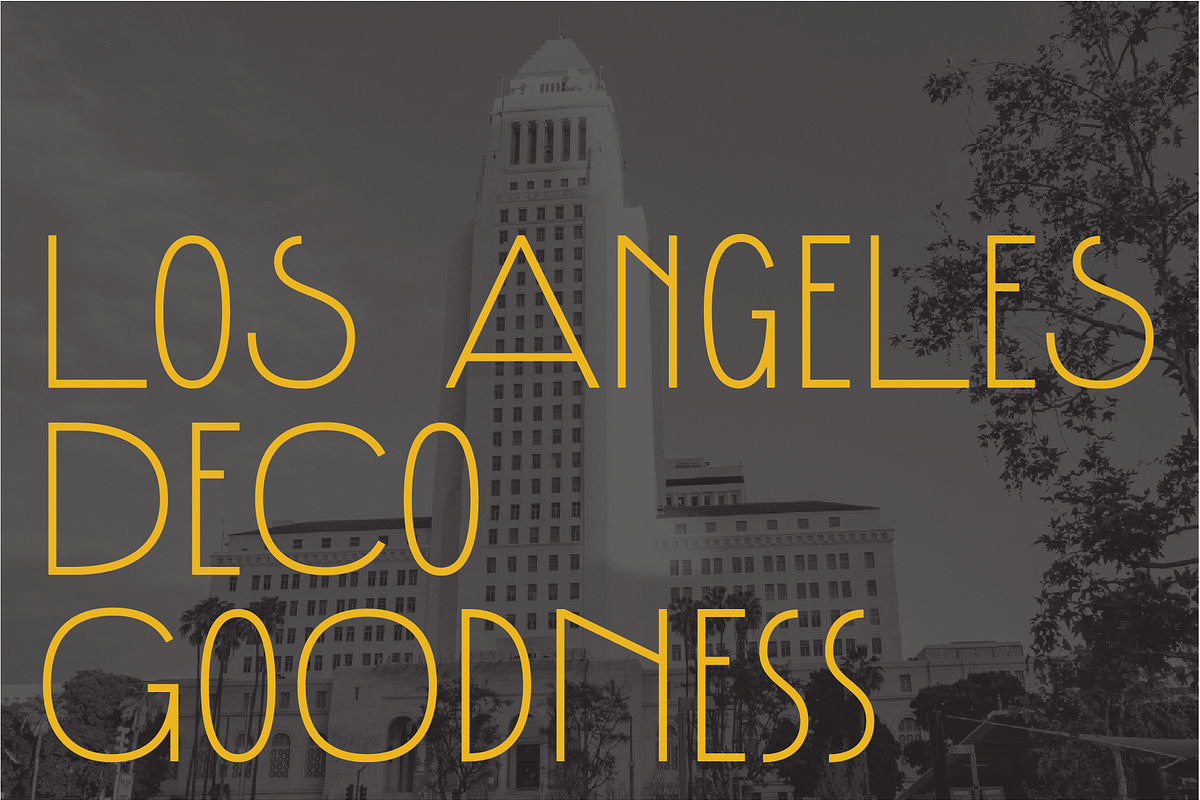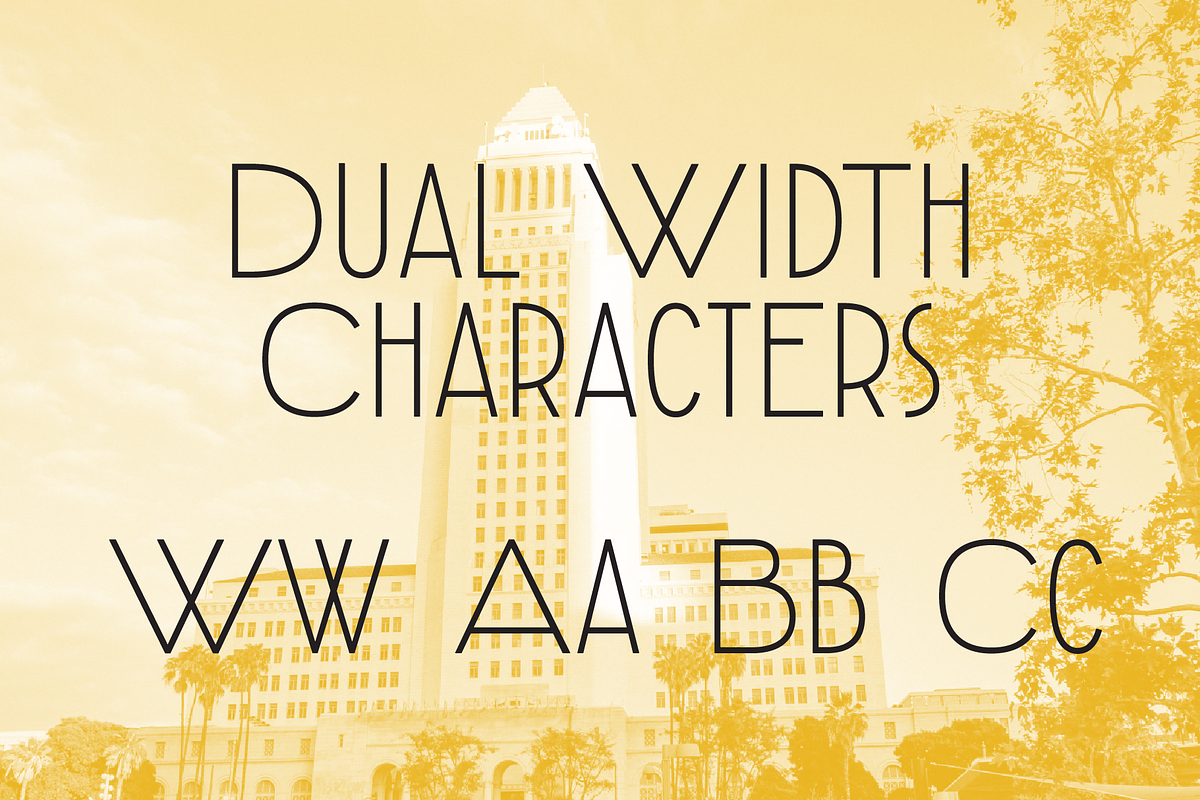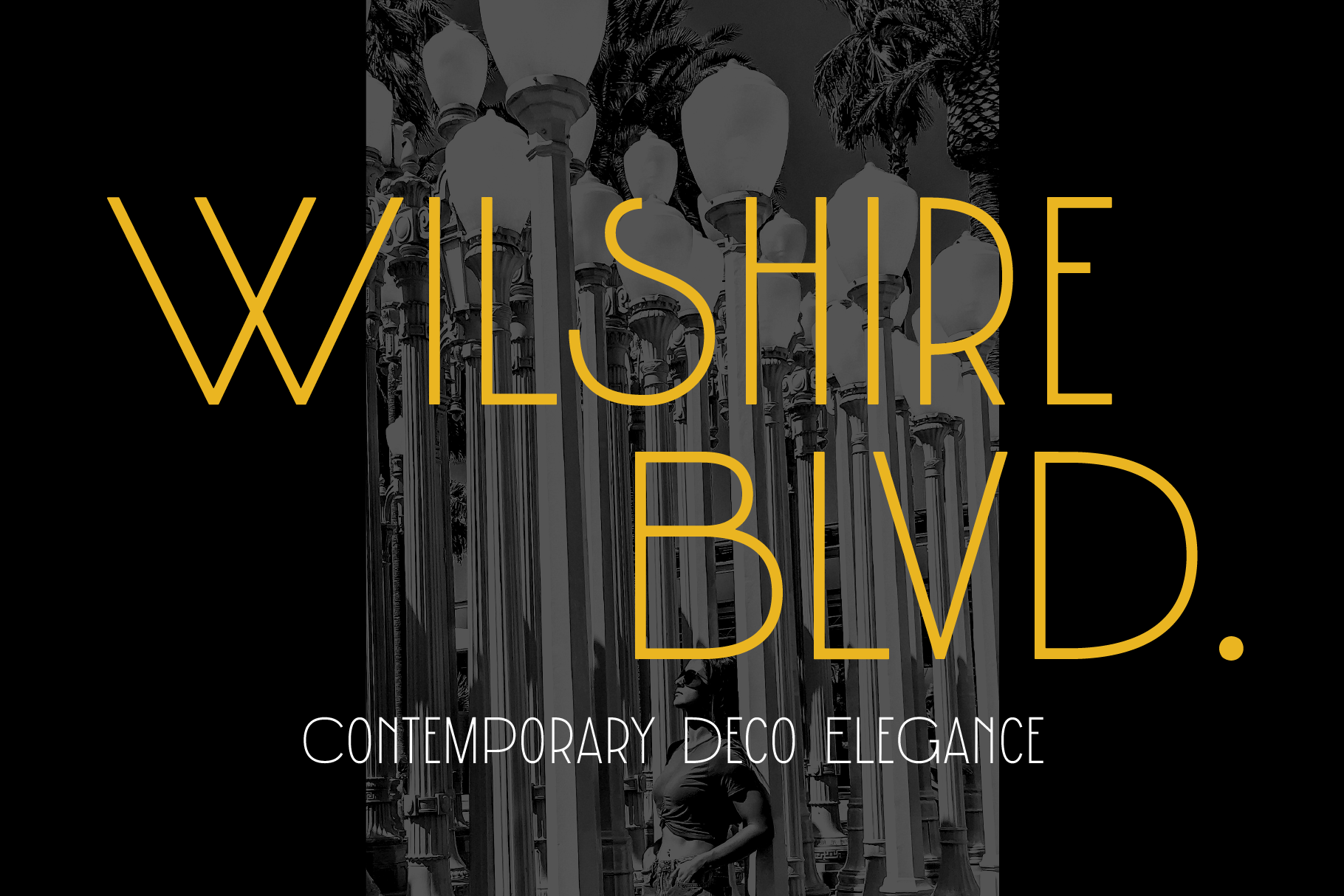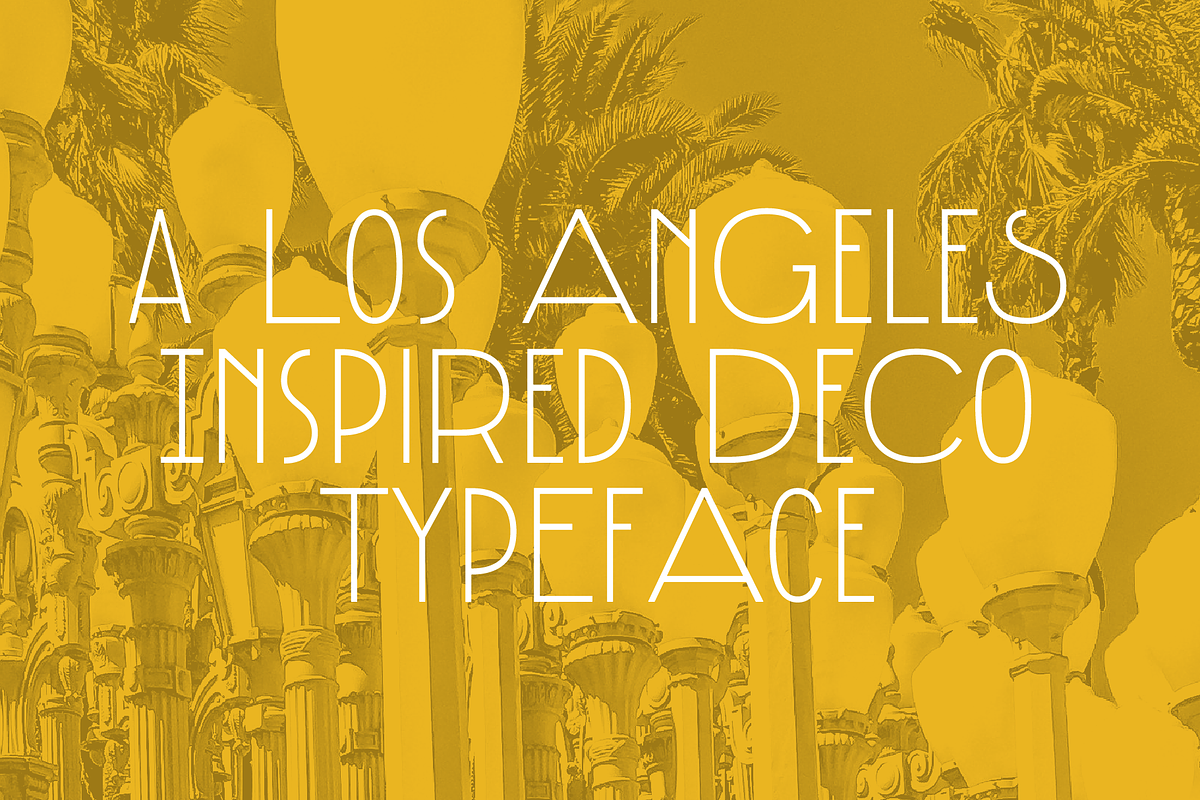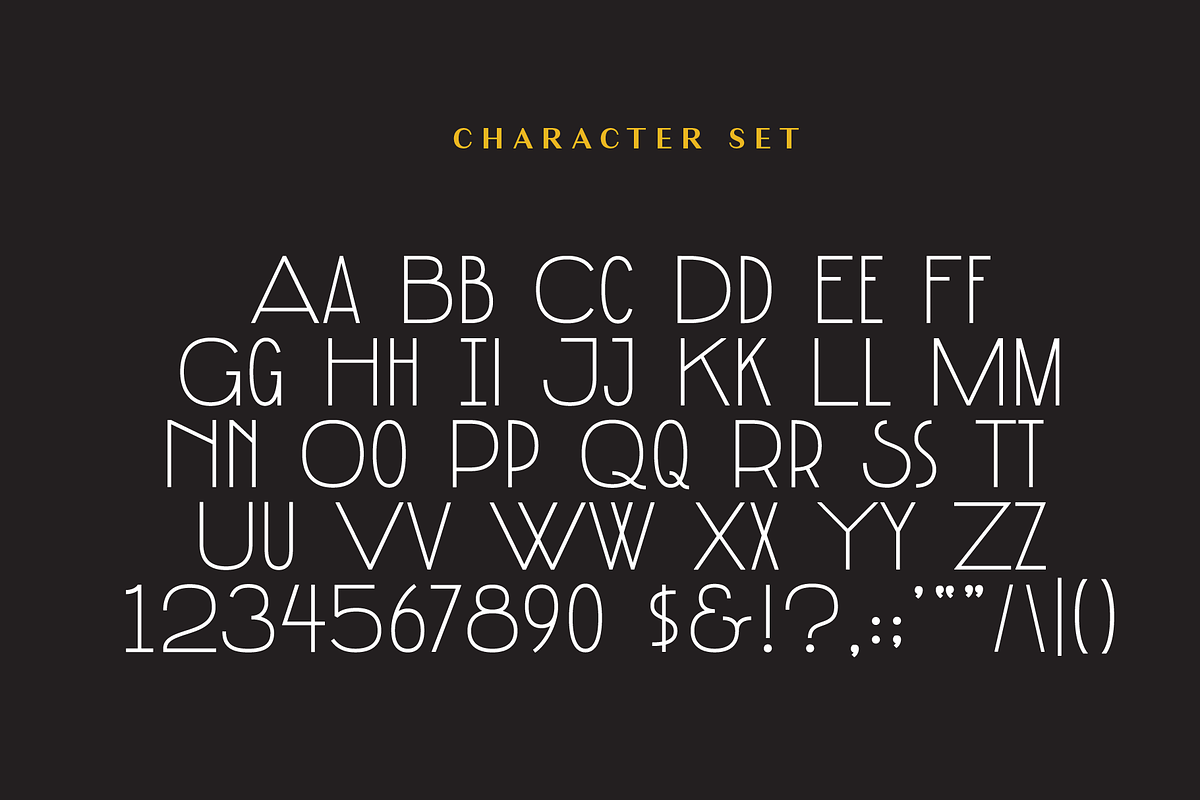
Wilshire Blvd Typeface
Wilshire Blvd. is a contemporary typeface inspired by Los Angeles Art Deco.
This display typeface features two widths for each main character to help add personality and verve to any of your projects.
The character set includes all capital letters and standard punctuation.